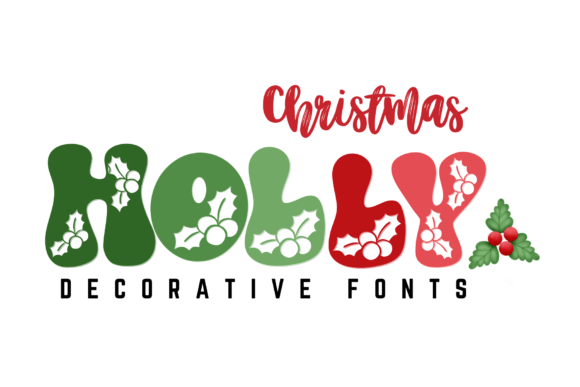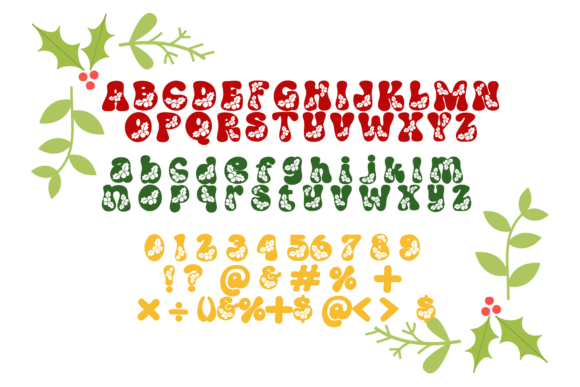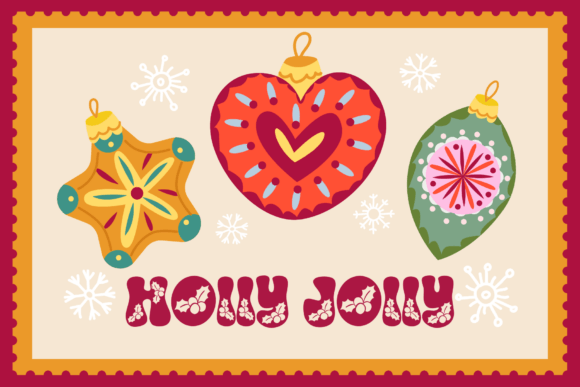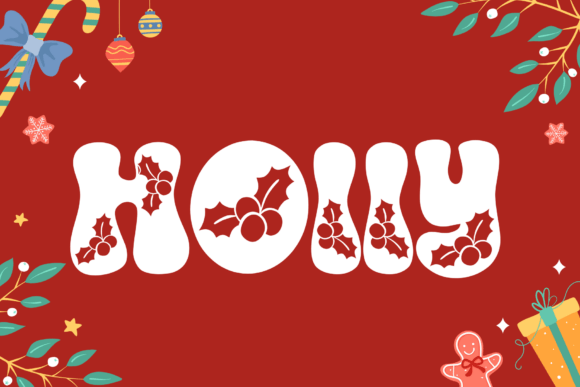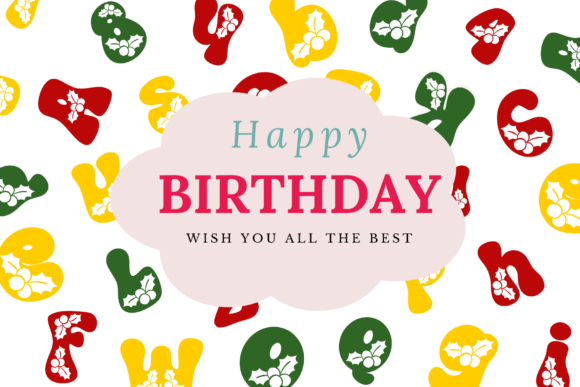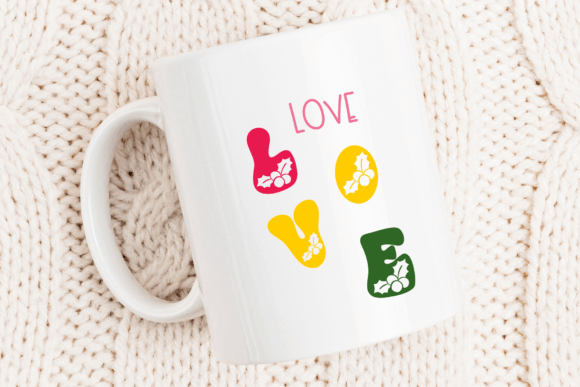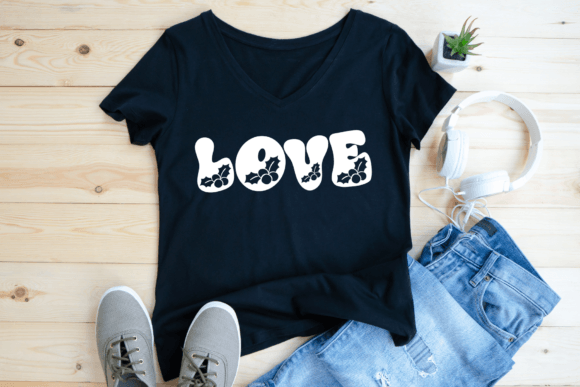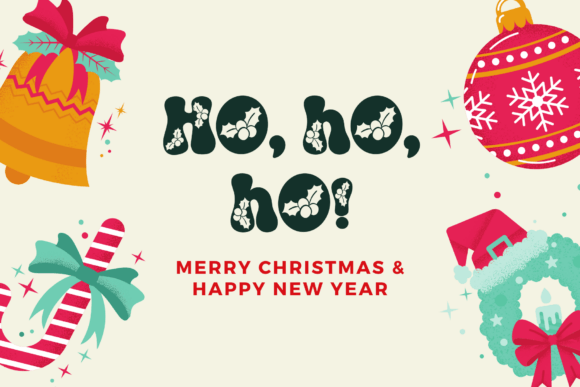
Christmas Holly Font
Christmas Holly is a decorative font with holiday cheer. You can use it for taking notes, writing a diary, or making greeting cards. However, you can still use it for other designs, such as banners, content, mugs, cards, shirts, stationery, social media posts, and more!